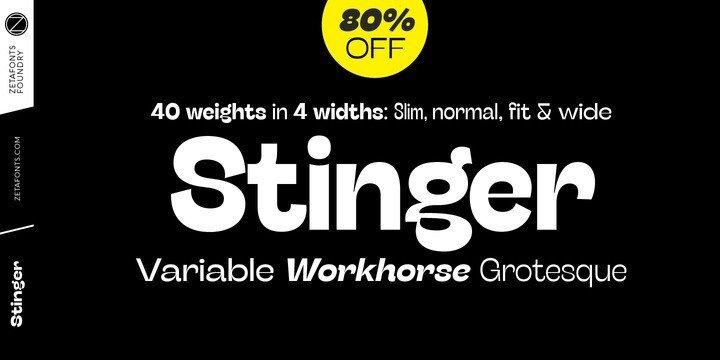
Stinger Sans Font Family
Sharp corners ideal curves and strict lines – it all fits in the font Stinger. Use this font if your product is created taking into account the current fashion tendencies – the font will help to emphasize the trend in your product.
Excellent looks and reads in large texts and articles is not lost in solitary inscriptions and is very self-sufficient in logos in the style of minimalism and modernity. Use it in branding, in printing products, etc.